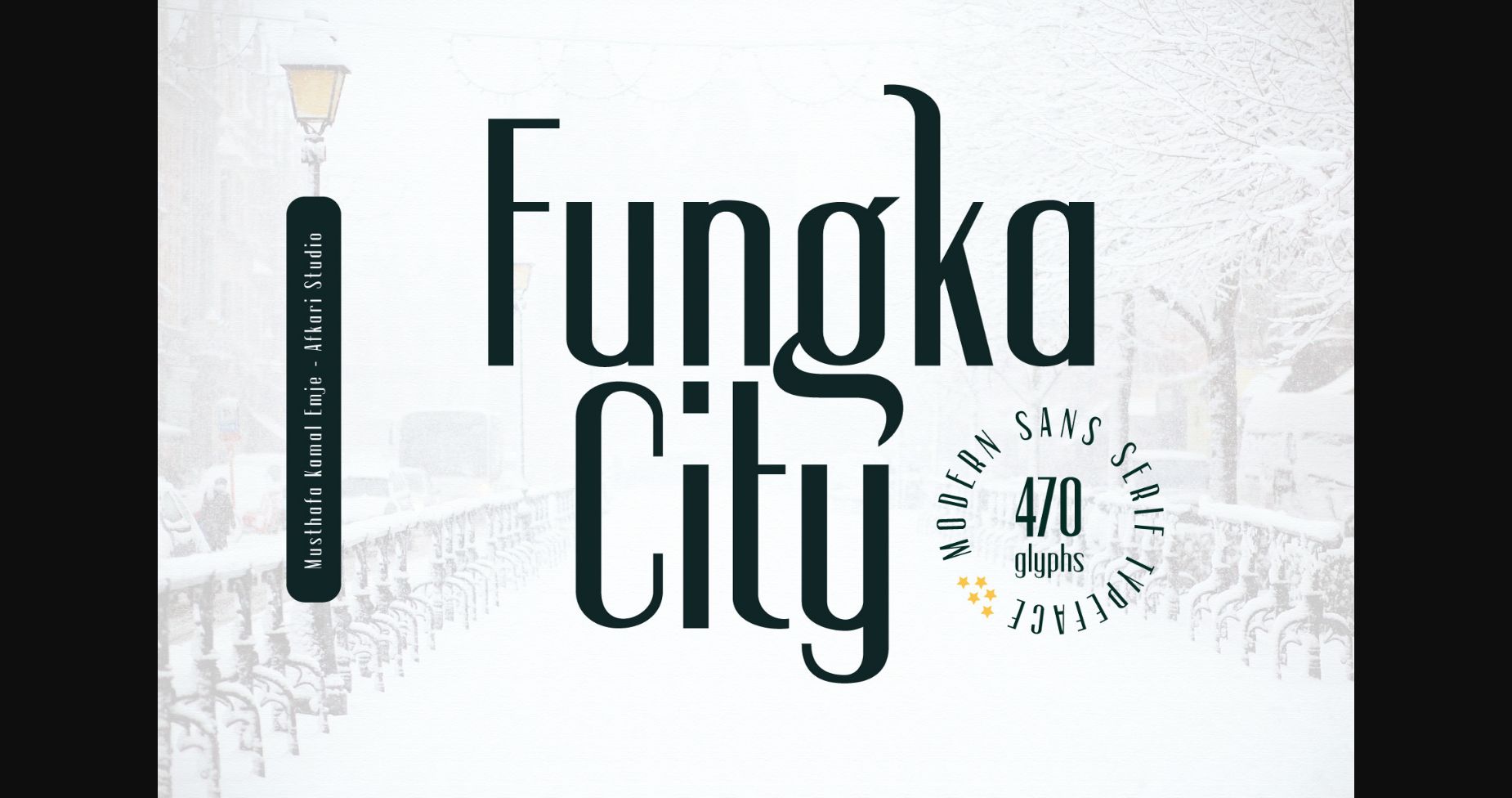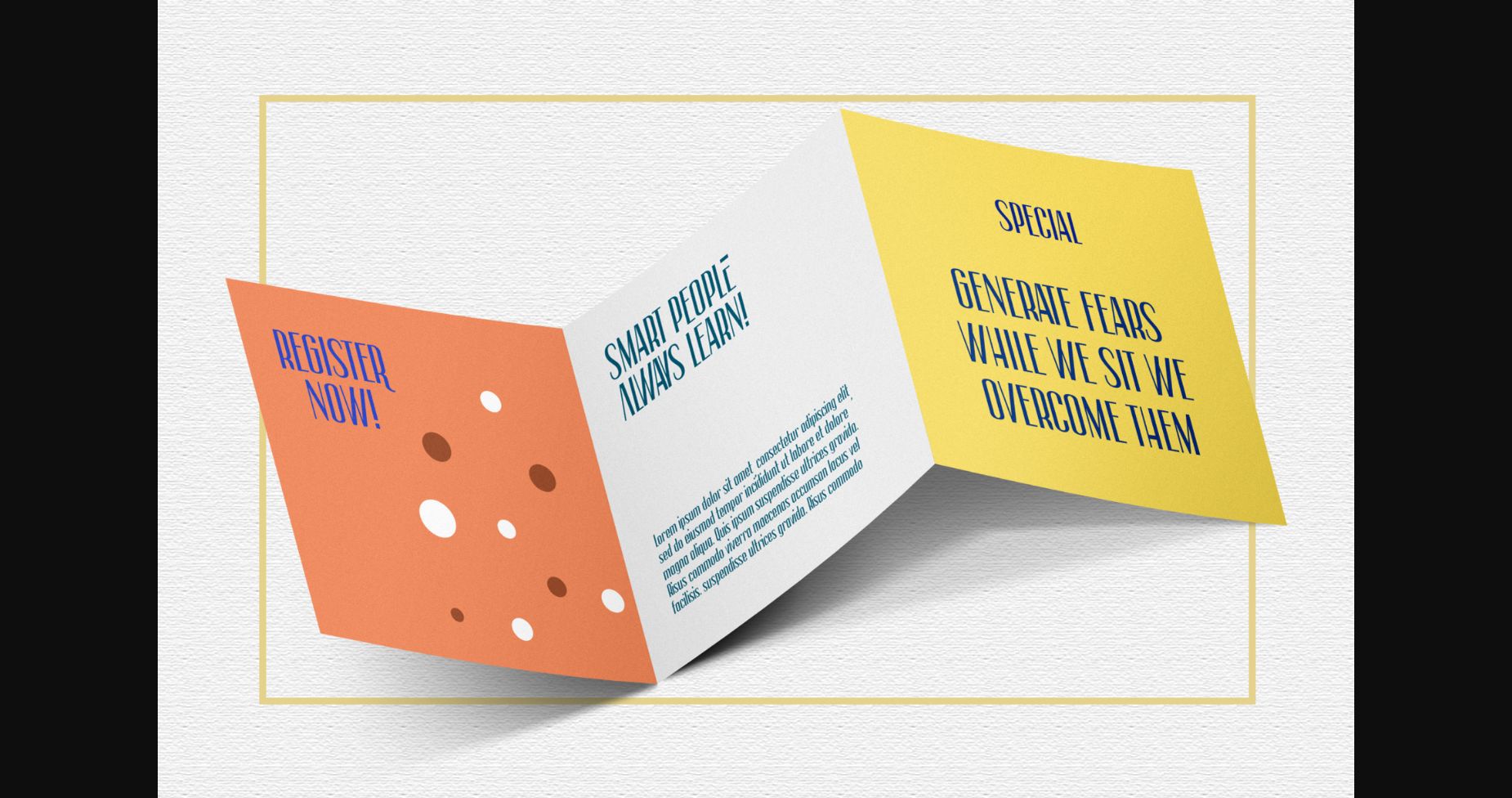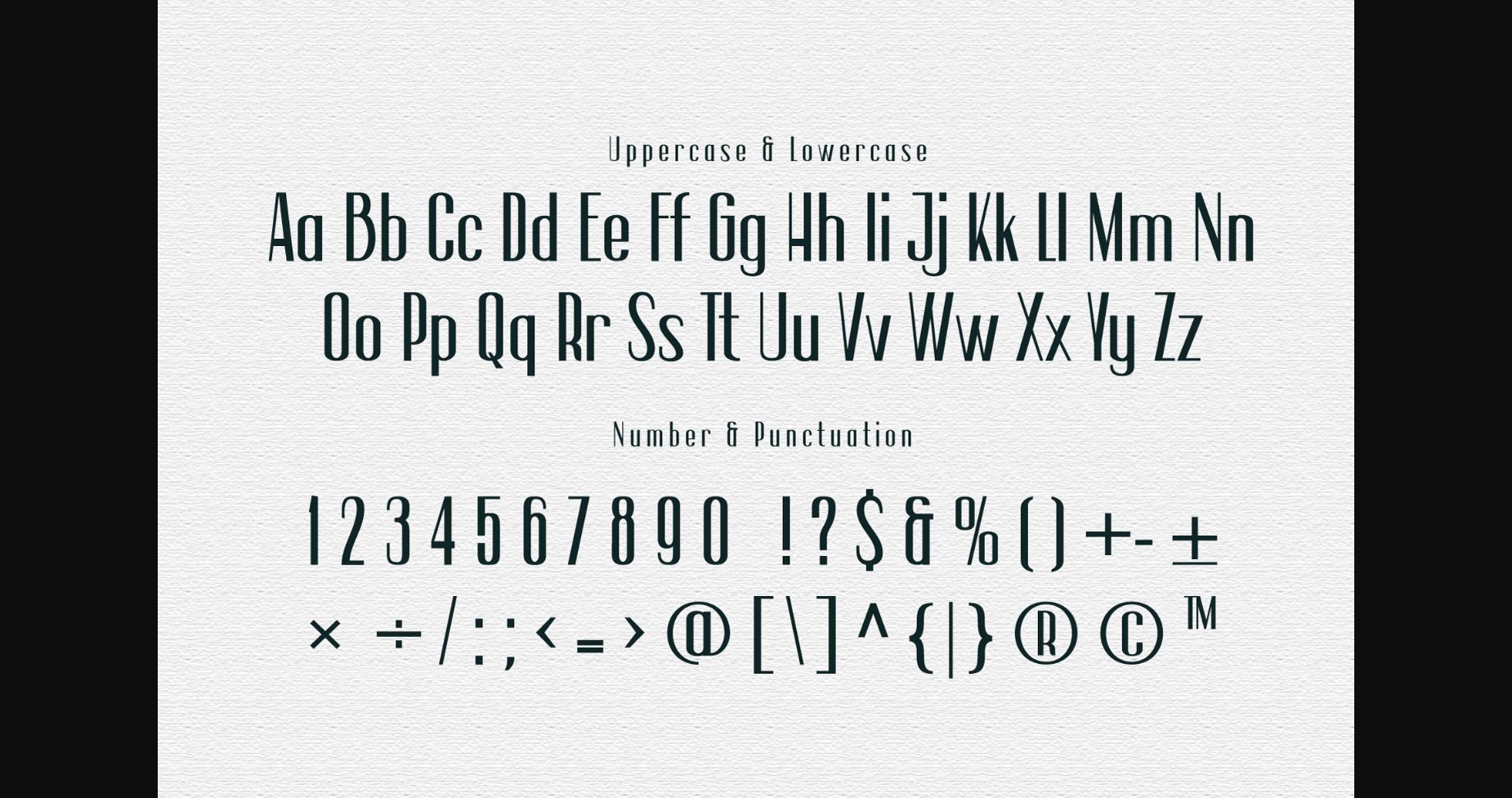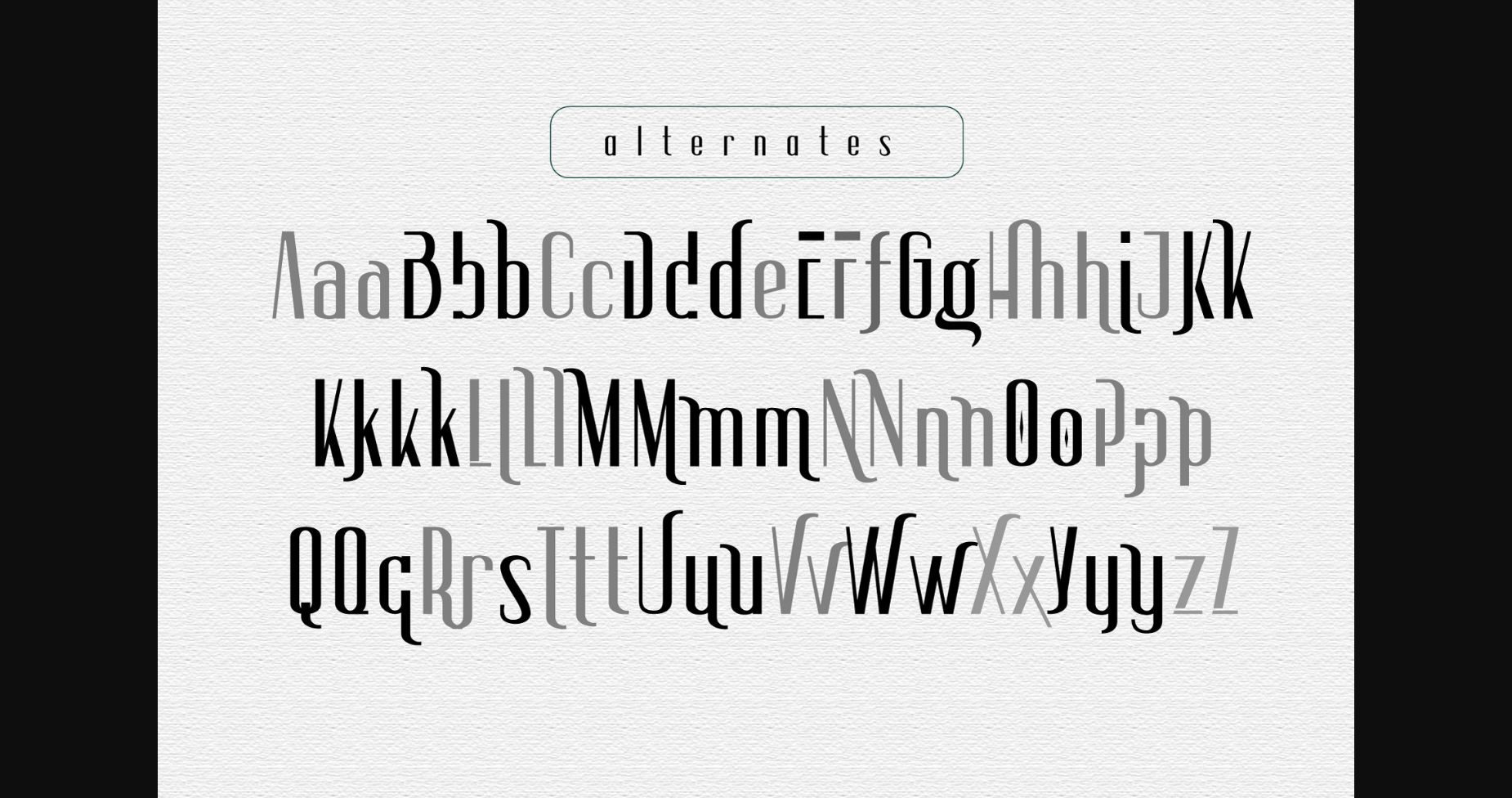
About Fungka City Font
Fungka City – Modern Stylish Sans Serif Font
Fungka City is a Modern Stylish Sans Serif Font. It pairs well with modern fonts and stands strongly on its own. It has beautiful alternate characters and a stylish look that will make your design more conceptual.
Fungka City is flexible for any style of graphic design, perfect for logo, headline, magazine, body text, quotes, and more.
Fungka City is a Modern Stylish Sans Serif Font. It pairs well with modern fonts and stands strongly on its own. It has beautiful alternate characters and a stylish look that will make your design more conceptual.
Fungka City is flexible for any style of graphic design, perfect for logo, headline, magazine, body text, quotes, and more.